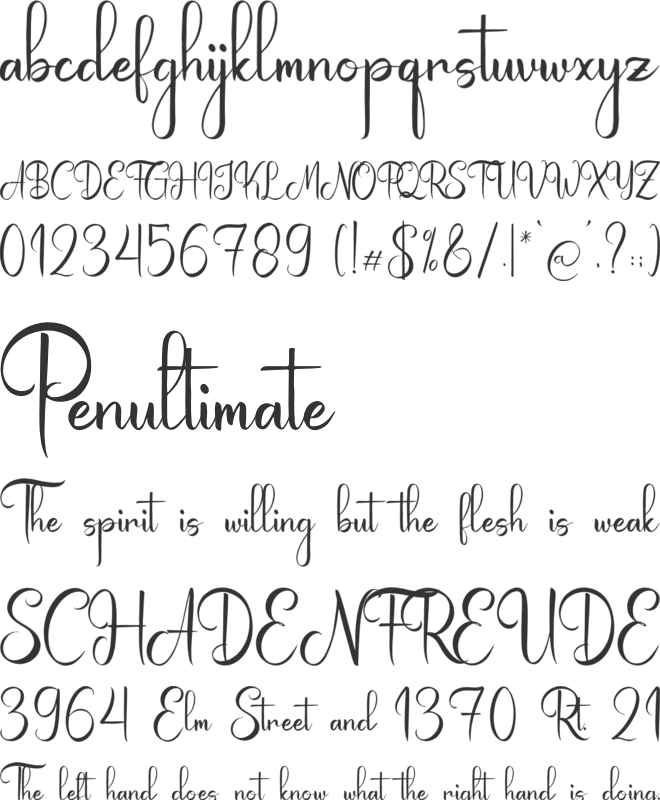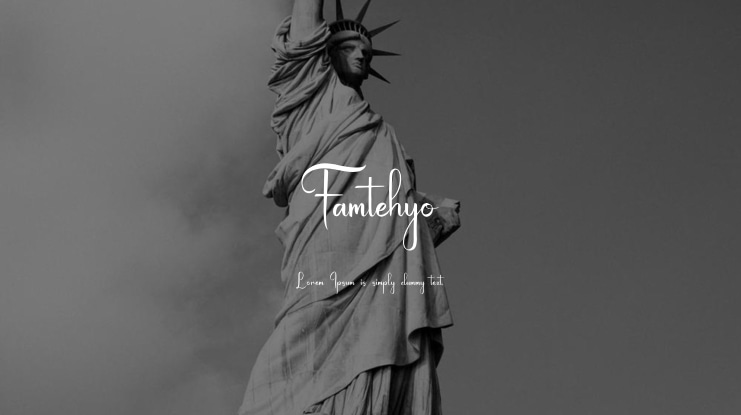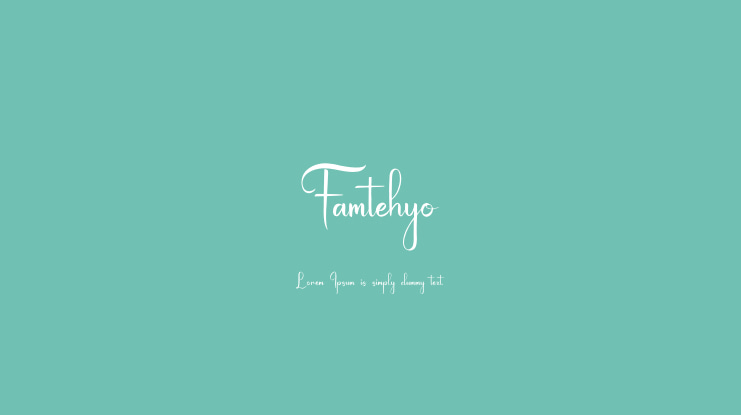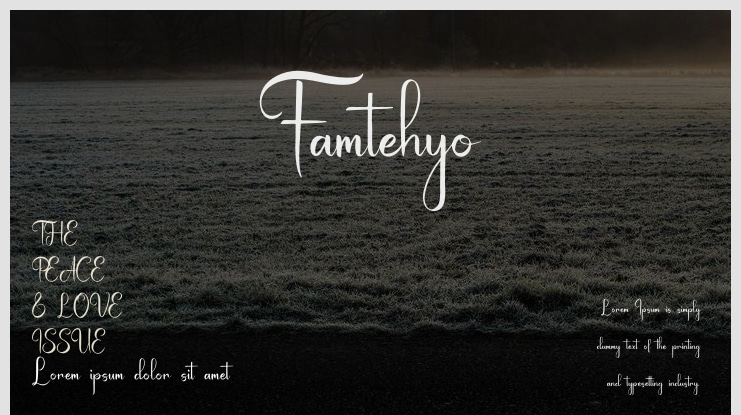
Famtehyo | Handwritten Script is a perfect choice for various projects including logos, branding, homeware designs, product packaging, quotes, posters, apparel, book covers, business cards, invitations, labels, photography, watermarks, special events, and any other projects that require an elegant script font.